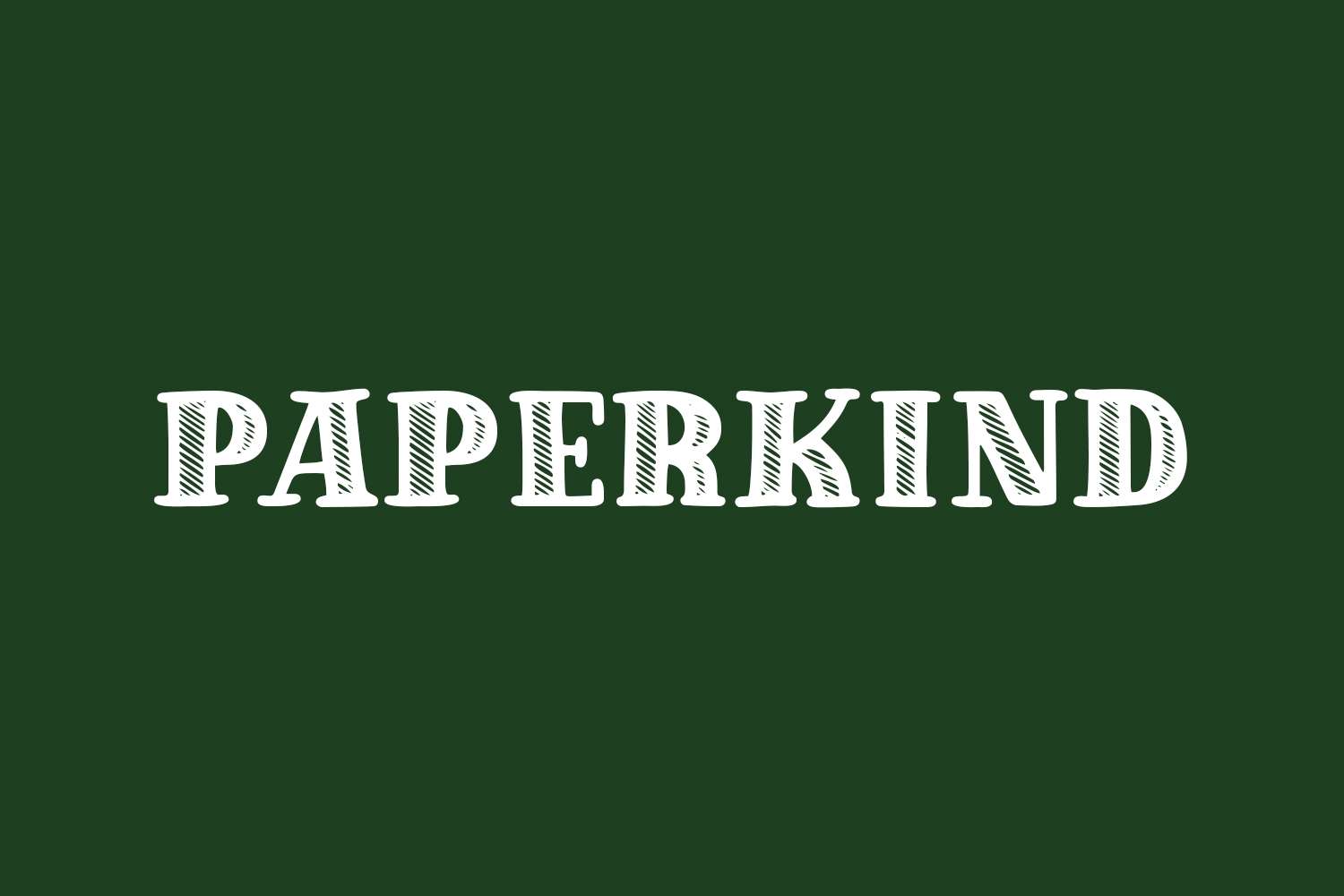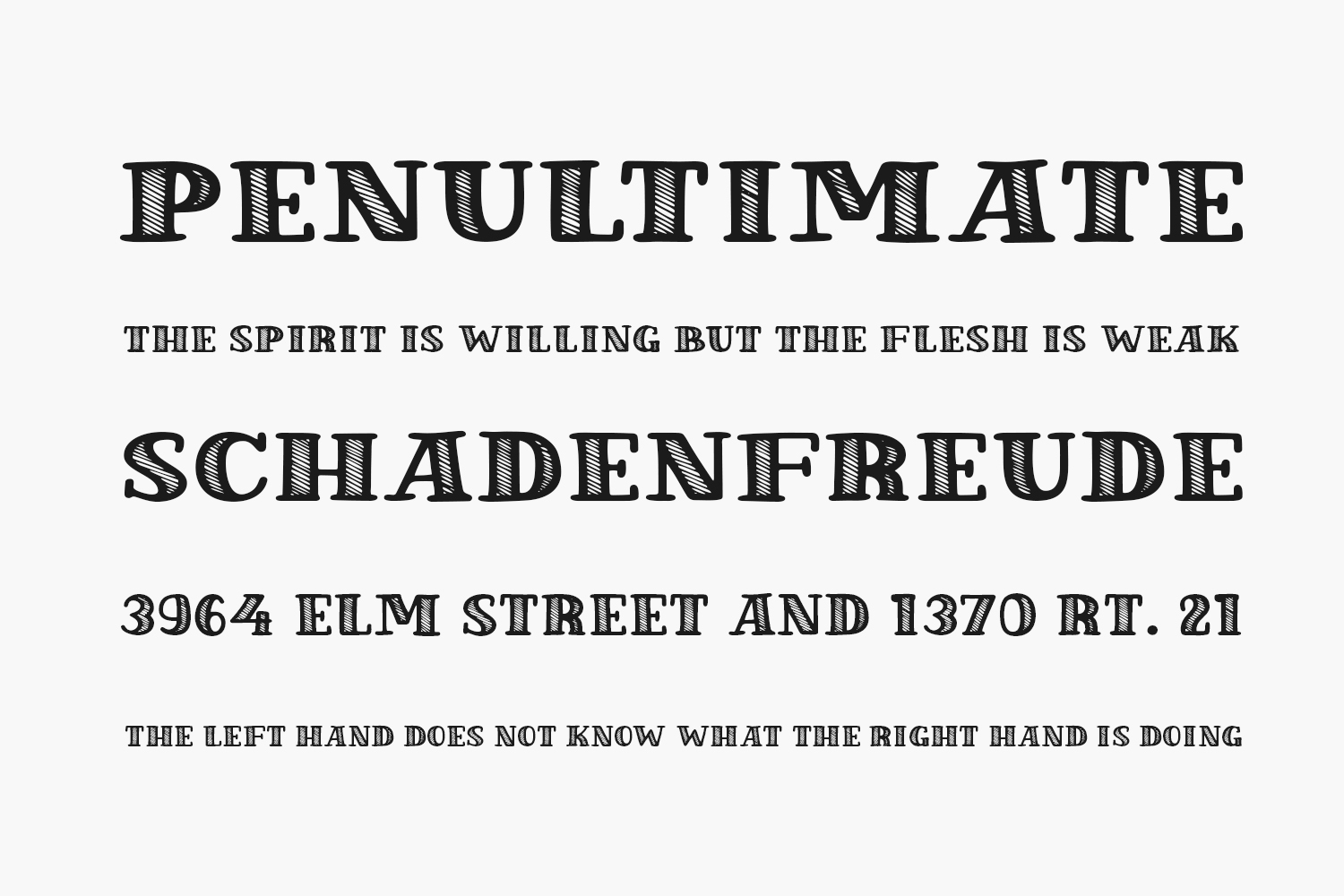
Paperkind Free Font is a modern, cool display font perfect for posters, logos, magazines, book covers, banners, and many more! Get this awesome font, and use it to create lovely designs. It can easily be matched to an extensive set of projects, so add it to your creative ideas and notice how it makes them stand out. Paperkind Free Font is free for personal or commercial use.